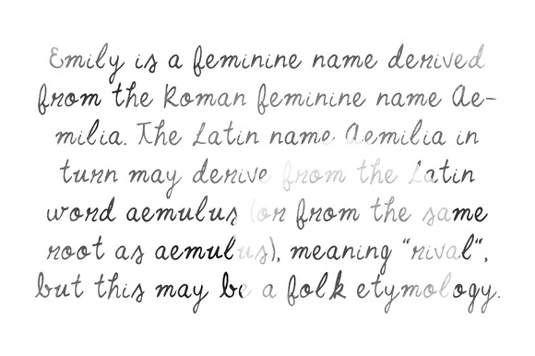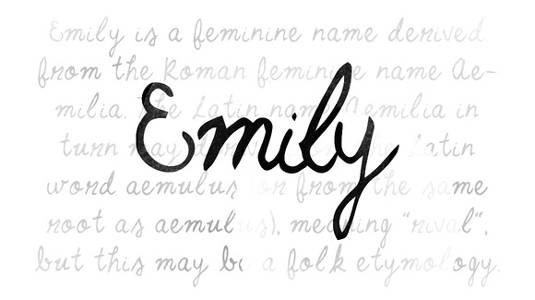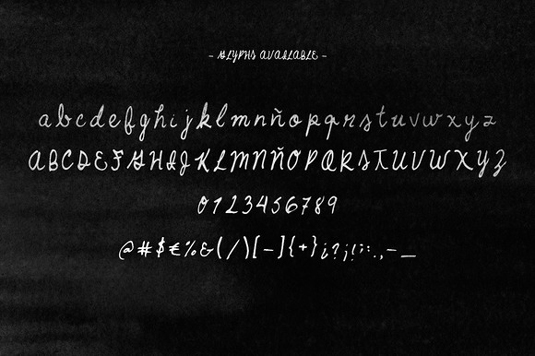
Font of the day: Emily
Every day we showcase the best fonts on the web. Today it's Emily by Noe Araujo, which is free to download for a limited time.
Give your designs an authentic handcrafted feel with today's typeface of choice, Emily. Created by Mexico-based designer Noe Araujo, Emily is perfectly suited to stationery, logos and much more.